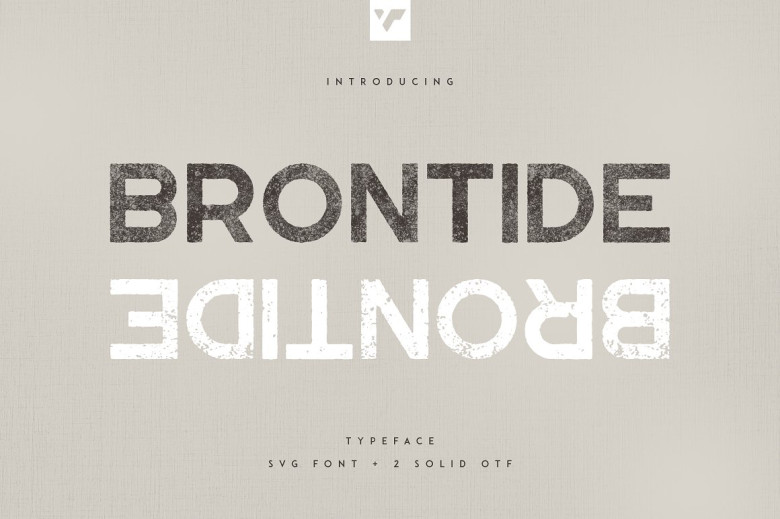
Brontide Font
BRONTIDE is a chic sans-display typeface. Perfect for digital design, crafting projects or presentations; greeting cards; home-ware projects or as text overlay on images! BRONTIDE makes an excellent addition to home-ware projects as well as branding designs, packaging for products magazines or headers for magazines – or simply as text over any background image!
Brontide Sans Display Font